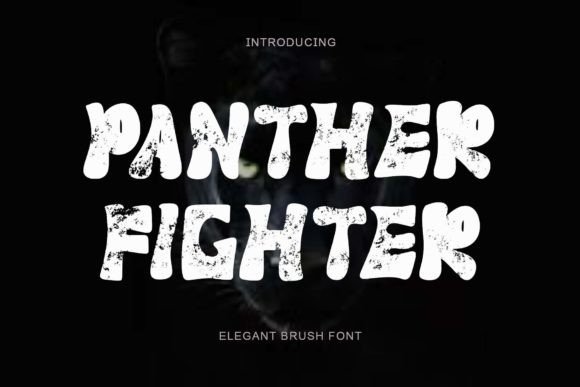
Unleash the Wild Elegance with Panther Fighter Font: A Brushstroke Masterpiece
Step into a world where vintage charm meets modern aesthetics with Panther Fighter Font, a captivating display font that will leave you spellbound. This meticulously crafted brush font is a testament to the power of creativity, merging the raw energy of hand-painted strokes with the precision of digital artistry.
As you explore the depths of Panther Fighter, you'll discover a treasure trove of glyphs, each one a unique expression of the font's personality. From the sweeping curves of the uppercase letters to the delicate flourishes adorning the lowercase, every character exudes a sense of timeless beauty. And with the inclusion of numerals, punctuations, and multilingual support, Panther Fighter is ready to conquer any creative frontier.
Whether you're a seasoned designer seeking to infuse your projects with a touch of vintage flair or a passionate hobbyist seeking the perfect font to bring your ideas to life, Panther Fighter has something for everyone. Its versatility knows no bounds, making it an ideal choice for a wide range of applications, from logos that demand attention to movie titles that captivate the imagination.
Embrace the Halloween spirit with Panther Fighter's enchanting aura, crafting designs that evoke the thrill and mystery of the season. Or spread Christmas cheer with festive designs that capture the warmth and joy of the holidays. The possibilities are endless, as Panther Fighter seamlessly blends with your creative vision.